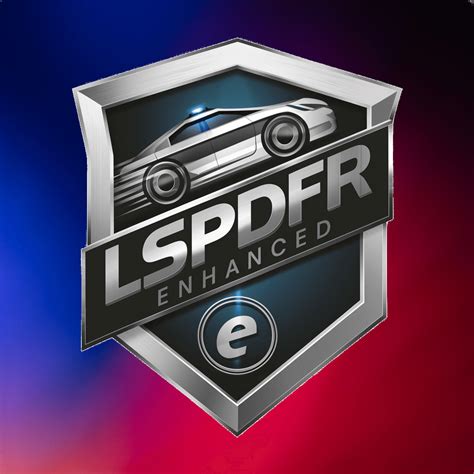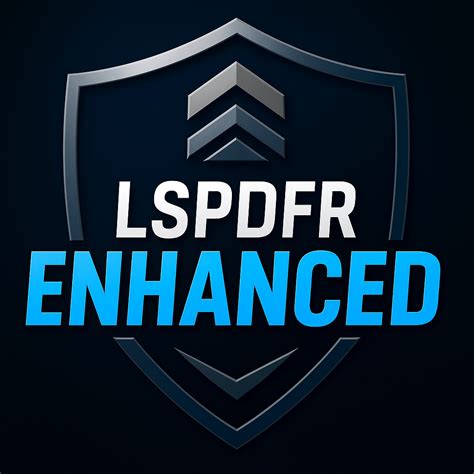
In the world of gaming, customization is key to creating an immersive and personalized experience. One of the most popular mods for the game Grand Theft Auto V is the LSPD First Response mod, which allows players to role-play as law enforcement officers. A crucial aspect of this mod is the Lspdfr Logo Font, which adds authenticity and professionalism to the in-game experience. This font is not just a visual element; it is a symbol of the mod's dedication to realism and detail.
Understanding the LSPD First Response Mod
The LSPD First Response mod transforms Grand Theft Auto V into a realistic law enforcement simulation. Players can take on the roles of police officers, firefighters, and paramedics, responding to emergencies and maintaining order in the virtual city of Los Santos. The mod includes a wide range of features, from detailed vehicle models to realistic radio communications. The Lspdfr Logo Font is a small but significant part of this mod, enhancing the overall immersion by providing a professional and authentic look to all in-game text related to law enforcement.
The Importance of the Lspdfr Logo Font
The Lspdfr Logo Font is more than just a font; it is a design element that ties the entire mod together. The font is used in various in-game interfaces, including the police radio, dispatch screens, and vehicle markings. Its clean and professional design helps to create a cohesive and believable law enforcement experience. The font’s use of bold, clear letters ensures that all text is easily readable, even in high-stress situations. This attention to detail is what sets the LSPD First Response mod apart from other mods and makes it a favorite among role-playing enthusiasts.
Customizing the Lspdfr Logo Font
While the Lspdfr Logo Font is designed to be used as-is, some players may want to customize it to better fit their role-playing needs. Customization can range from changing the font size to altering the color scheme. Here are some tips for customizing the font:
- Font Size: Adjusting the font size can make the text more readable or fit better within specific interfaces. This can be done by editing the font configuration files within the mod directory.
- Color Scheme: Changing the color scheme can help the text stand out against different backgrounds. This can be achieved by modifying the color codes in the font configuration files.
- Additional Text: Adding custom text or logos can further personalize the in-game experience. This requires editing the font files directly, which may require some knowledge of font editing software.
Comparing the Lspdfr Logo Font with Other Fonts
While the Lspdfr Logo Font is specifically designed for the LSPD First Response mod, there are other fonts available for Grand Theft Auto V that can be used for similar purposes. Here is a comparison of the Lspdfr Logo Font with some popular alternatives:
| Font Name | Design Style | Use Case | Pros | Cons |
|---|---|---|---|---|
| Lspdfr Logo Font | Professional, Bold | Law Enforcement Interfaces | Clean, readable, authentic | Limited customization options |
| Roboto | Modern, Sleek | General Text | Versatile, widely used | May not fit the law enforcement theme |
| Arial | Classic, Simple | General Text | Easy to read, widely available | Lacks the professional touch of Lspdfr Logo Font |